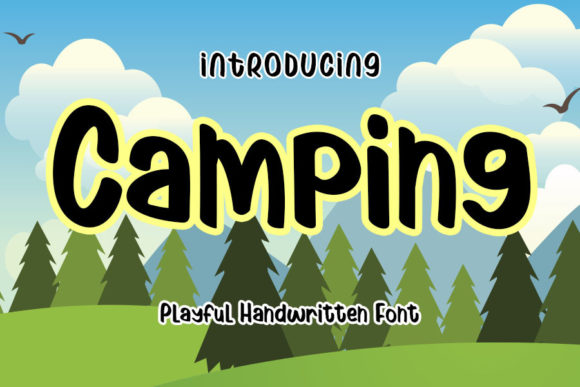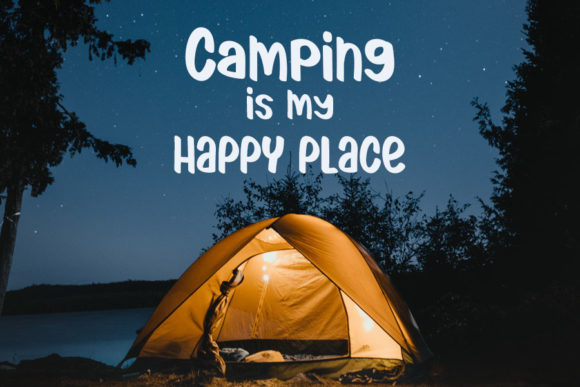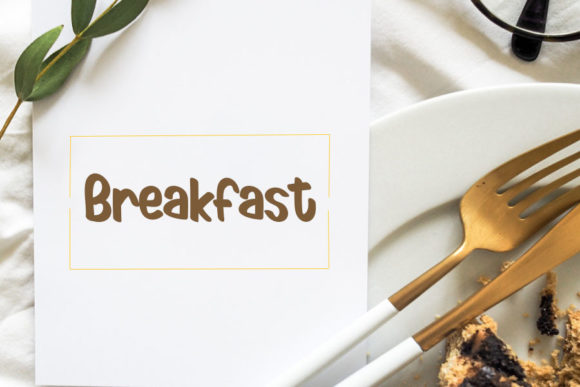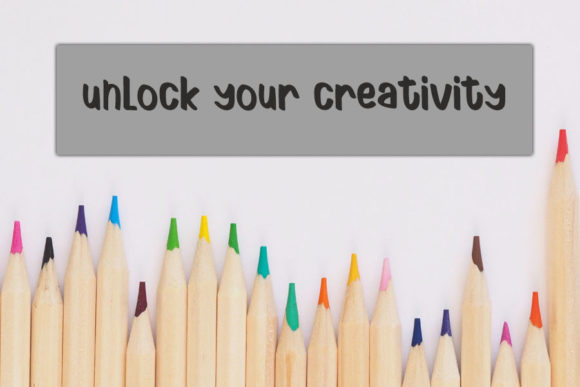
About Camping Font
Camping is a cute and trendy handwritten font. Its natural and unique style makes it incredibly fitting to a large pool of designs. The only limit is your imagination!